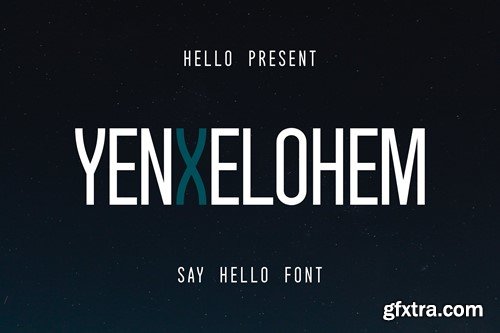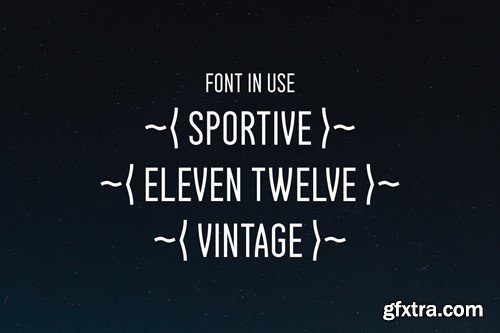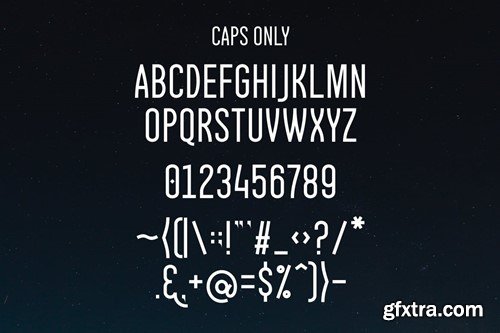
Yenxelohem Font
is a "hello" font intended to introduce all the work we have created. This type of font has sufficient thickness for making official covers such as diplomas, passports or certificates. Can also be used for the world of film industry. can also be used for the world of sports. Hopefully this can help in creating your project with Envato. Thank You The font is available in .OTF and .TTF formats